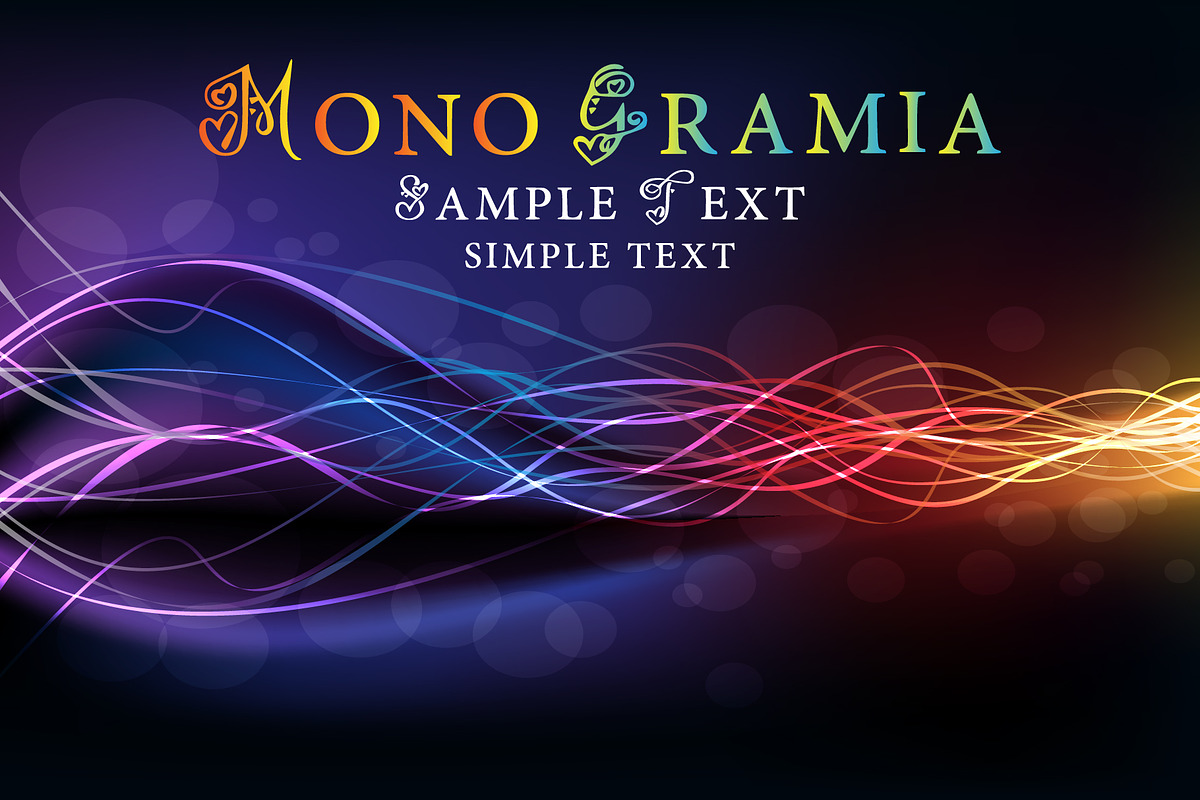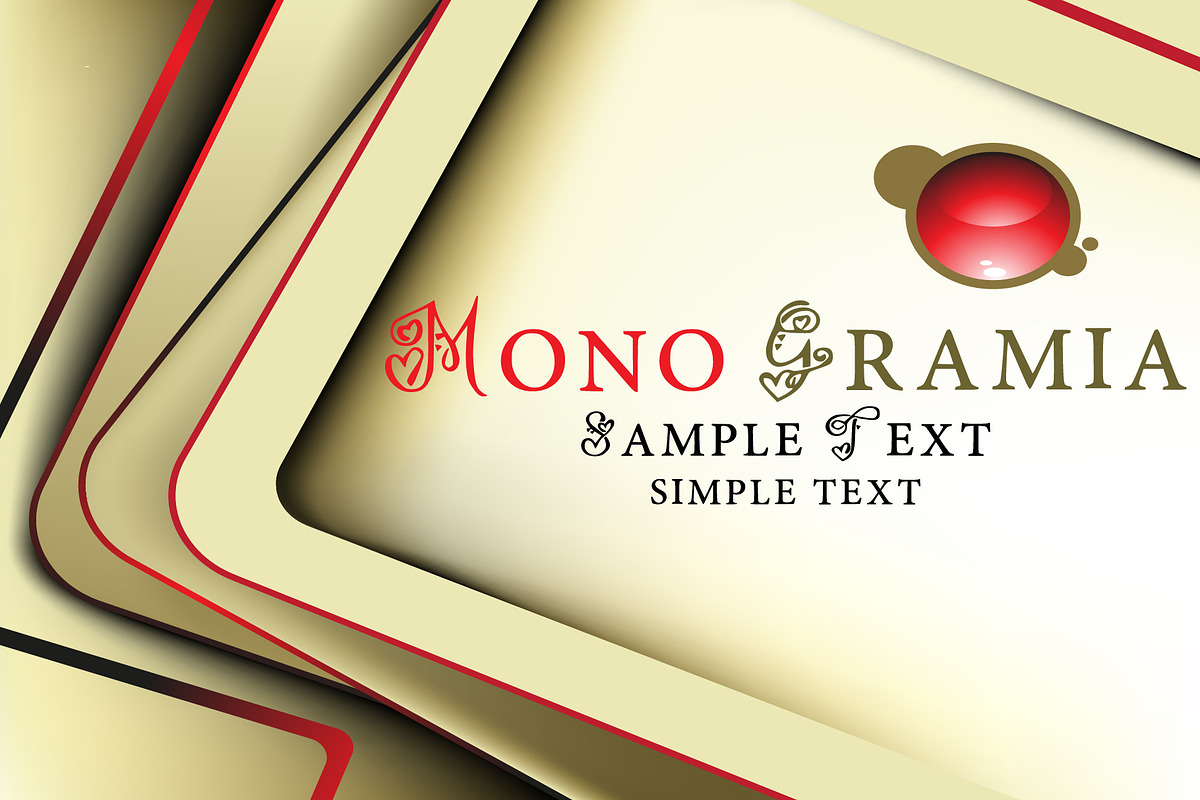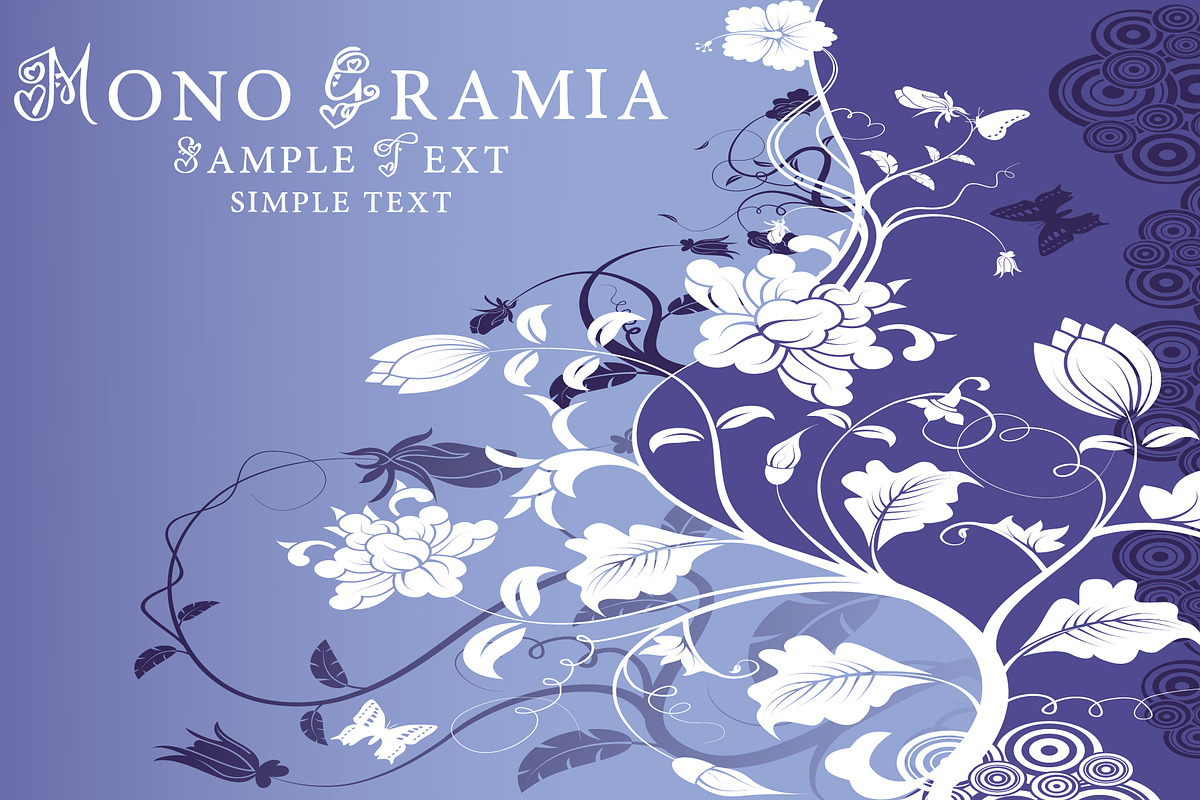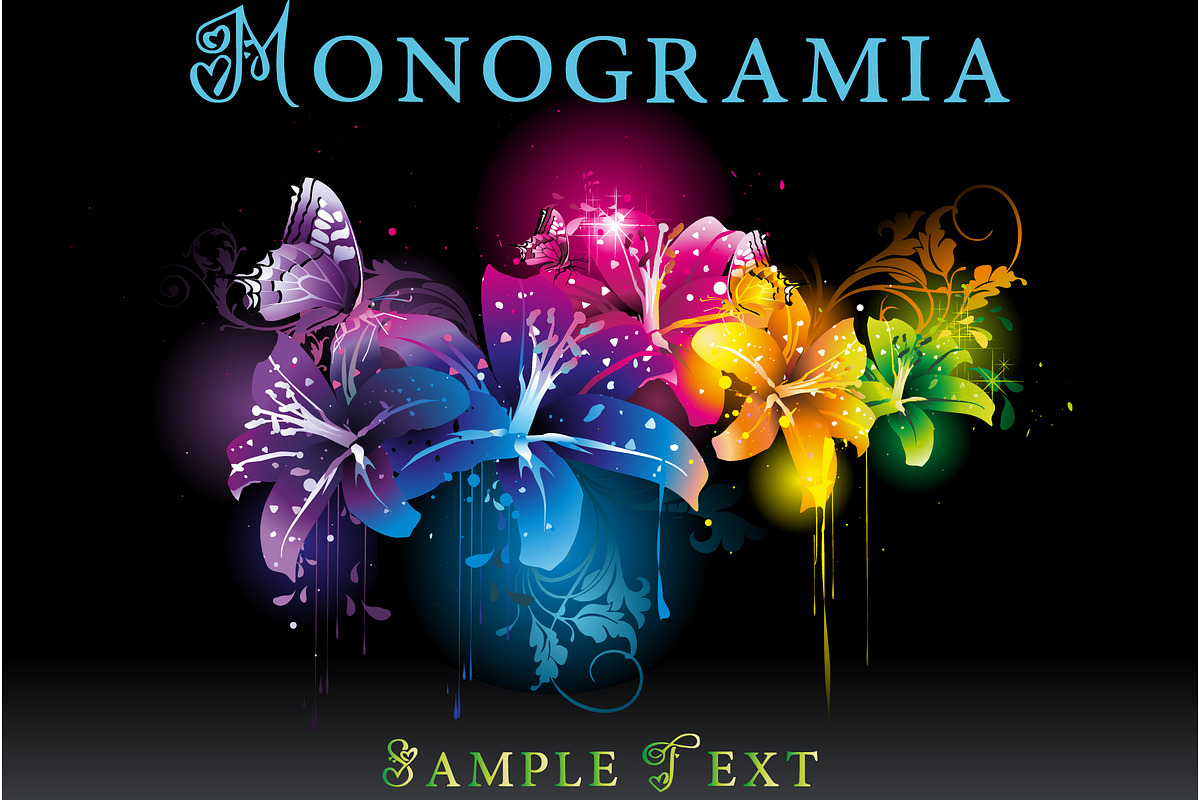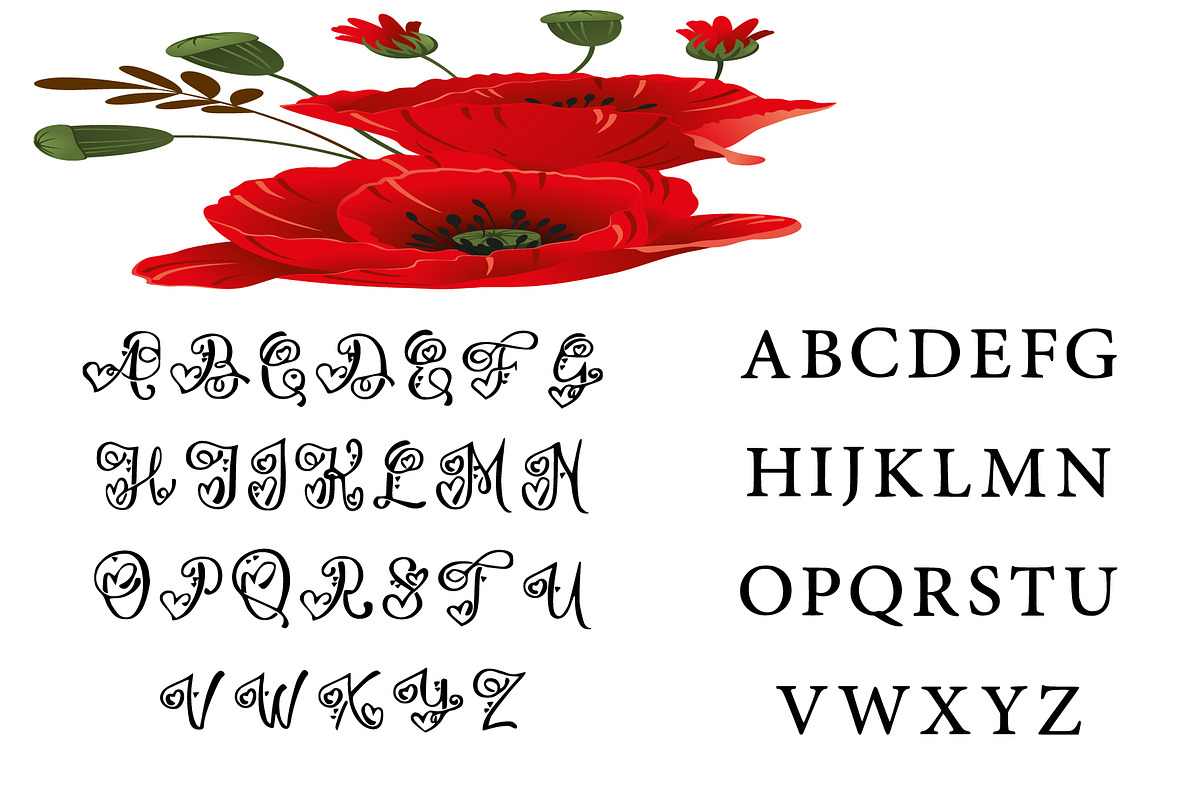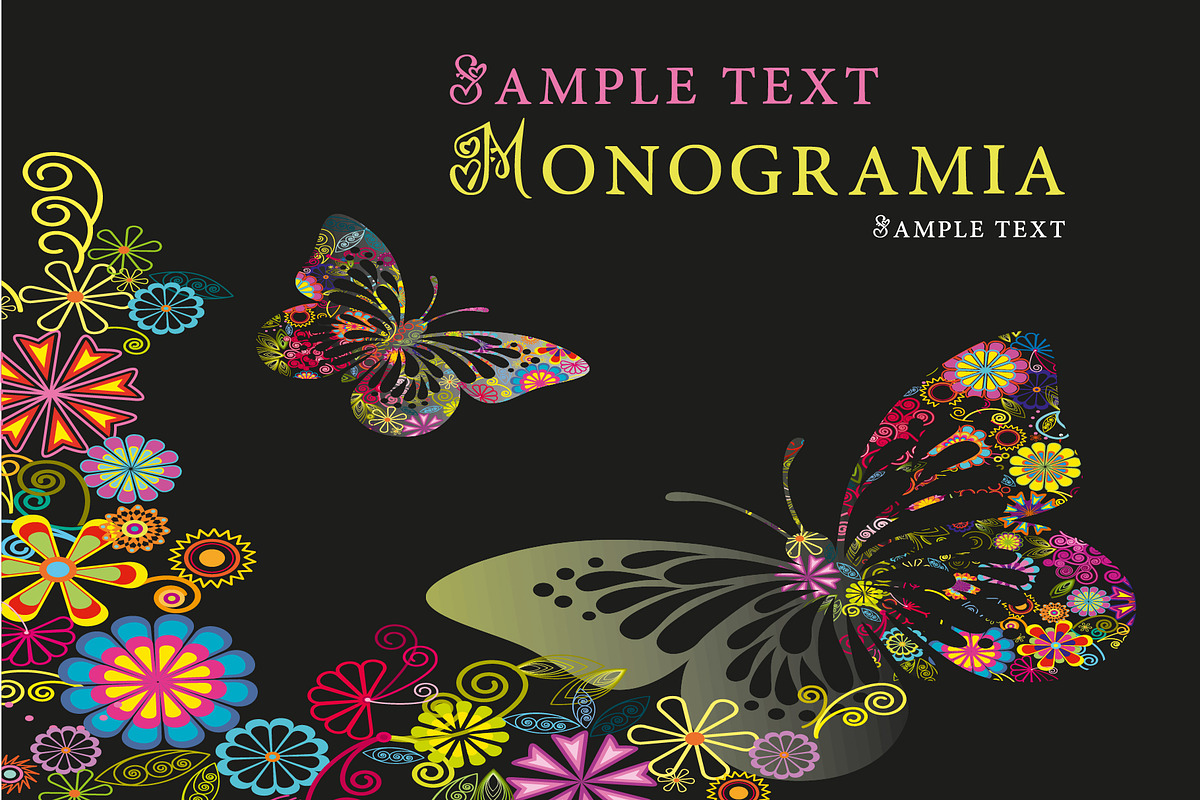
Monogramia Dual Style
Monogramia Dual Style is a 2 type alphabet script and sans serif font,. This font is charming and neatly crafted and highly detailed. Whatever the topic, will be a wonderful asset to your font library, as it has the potential to enhance any creation.